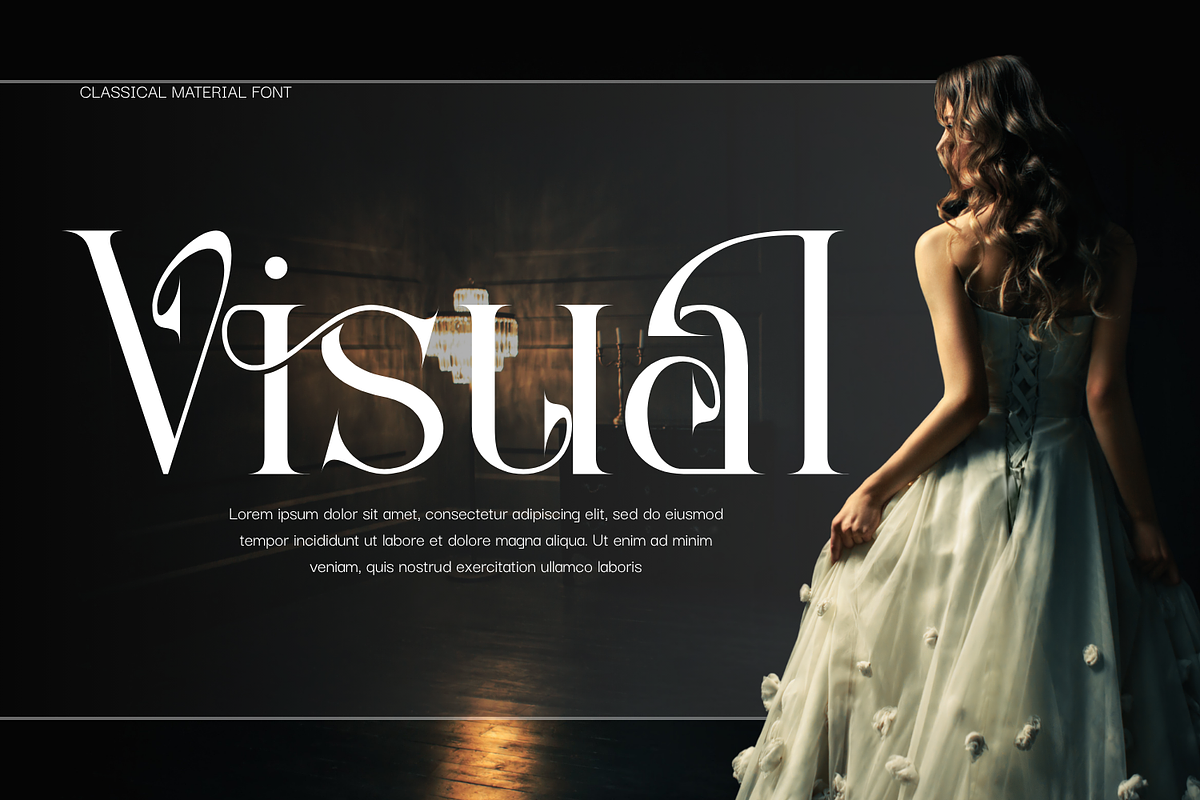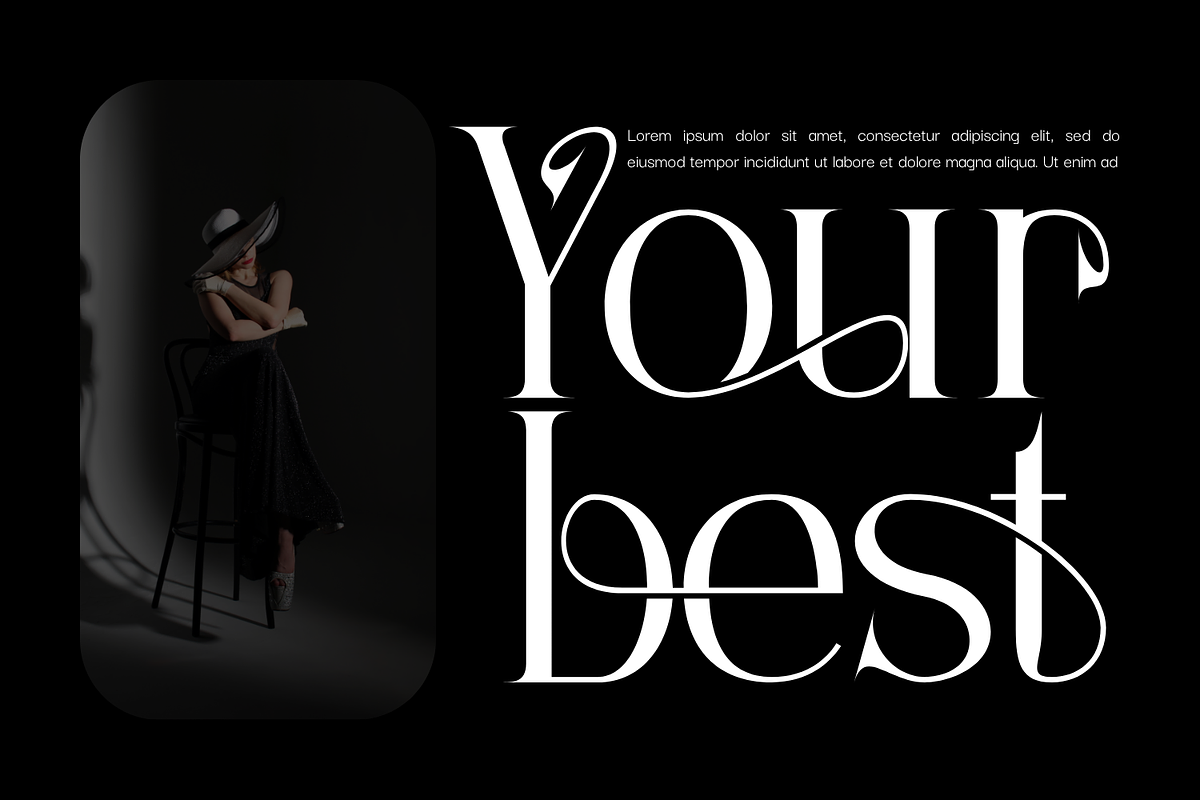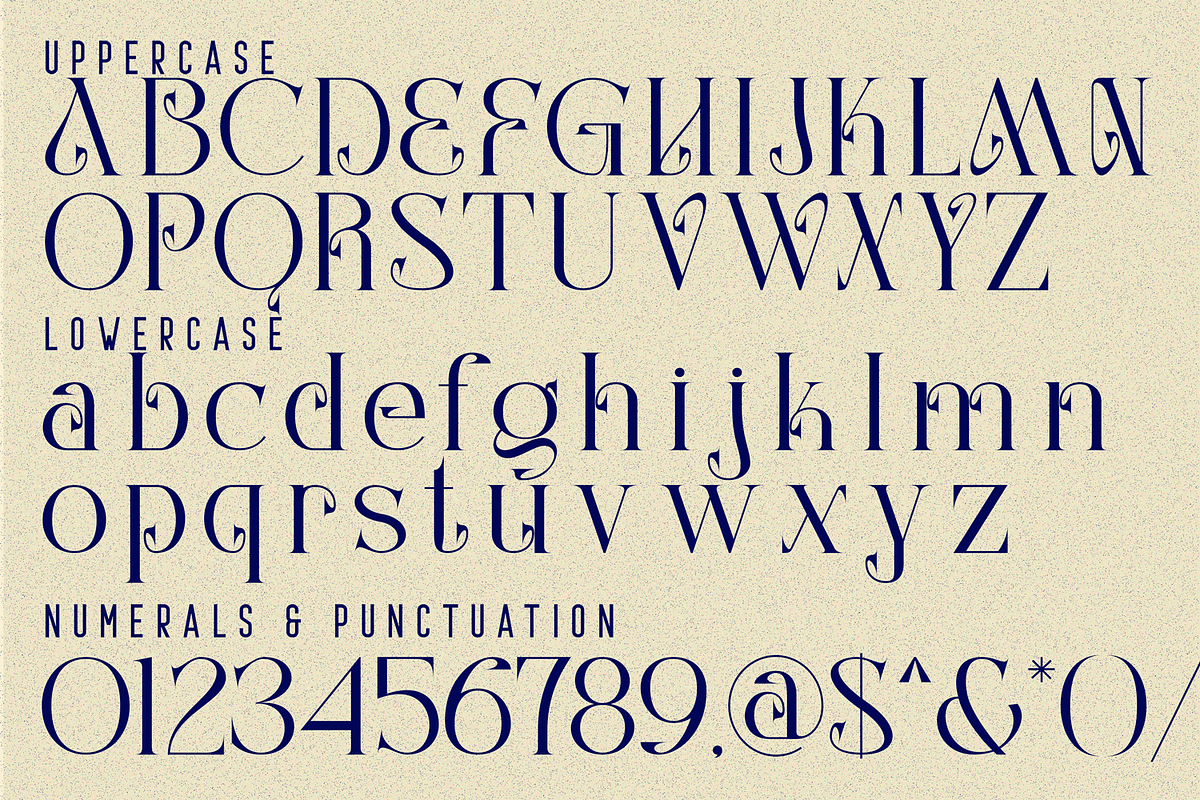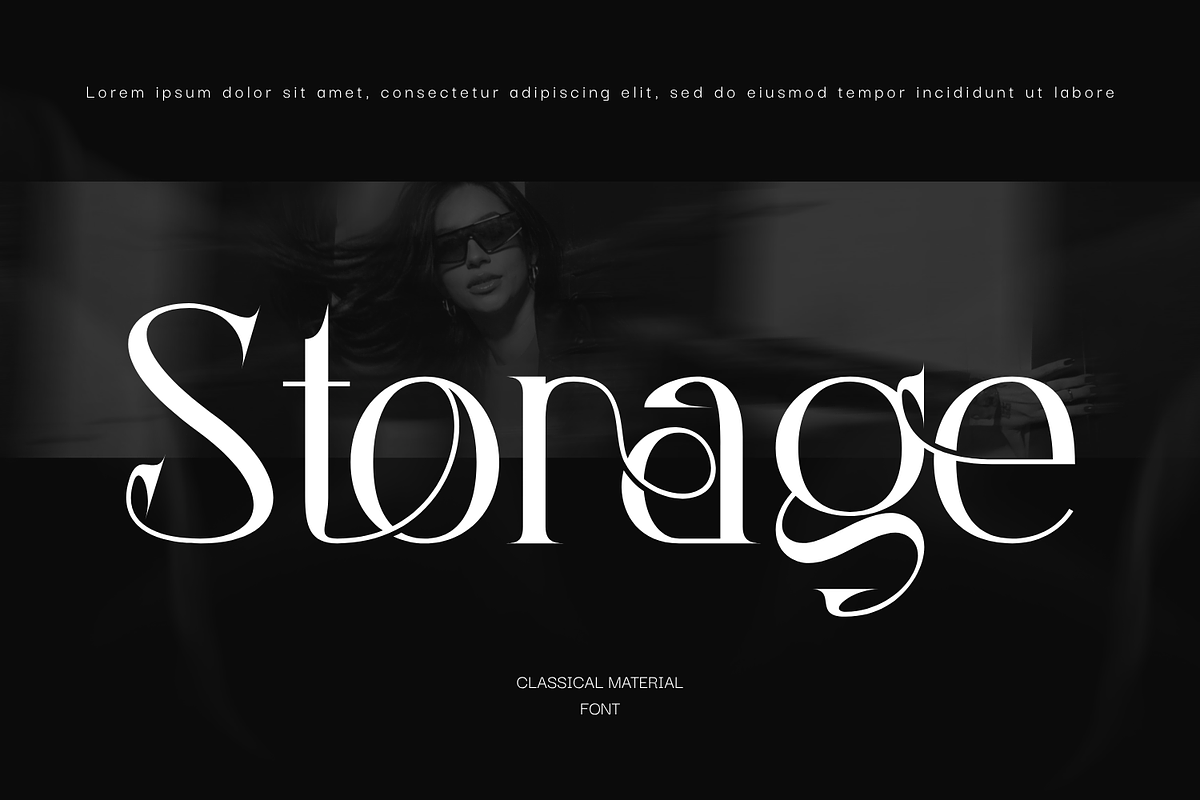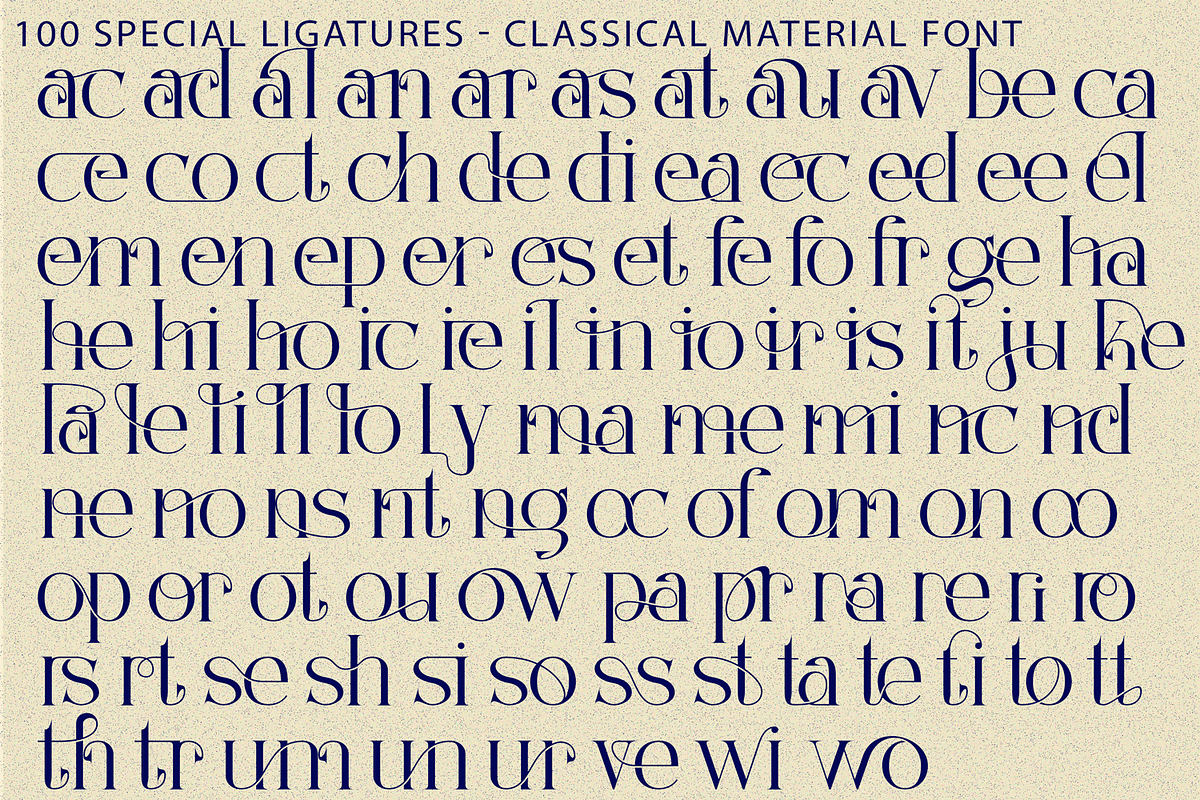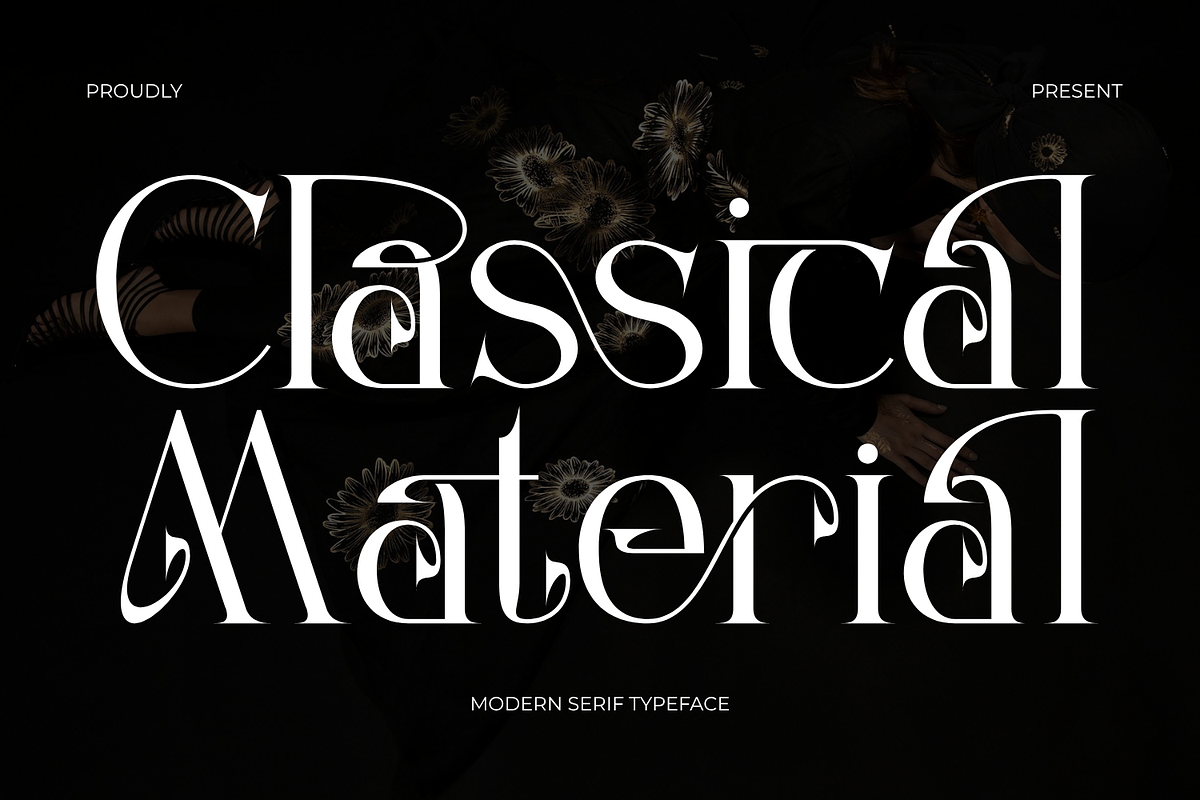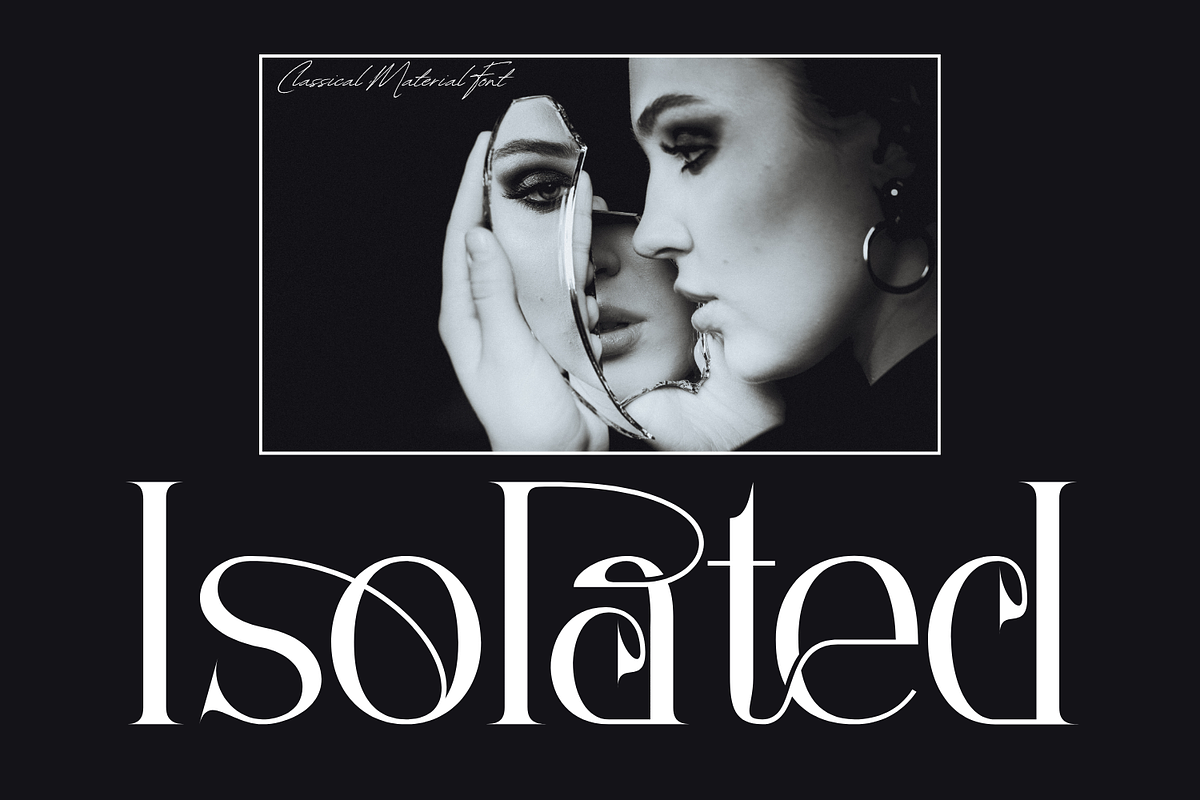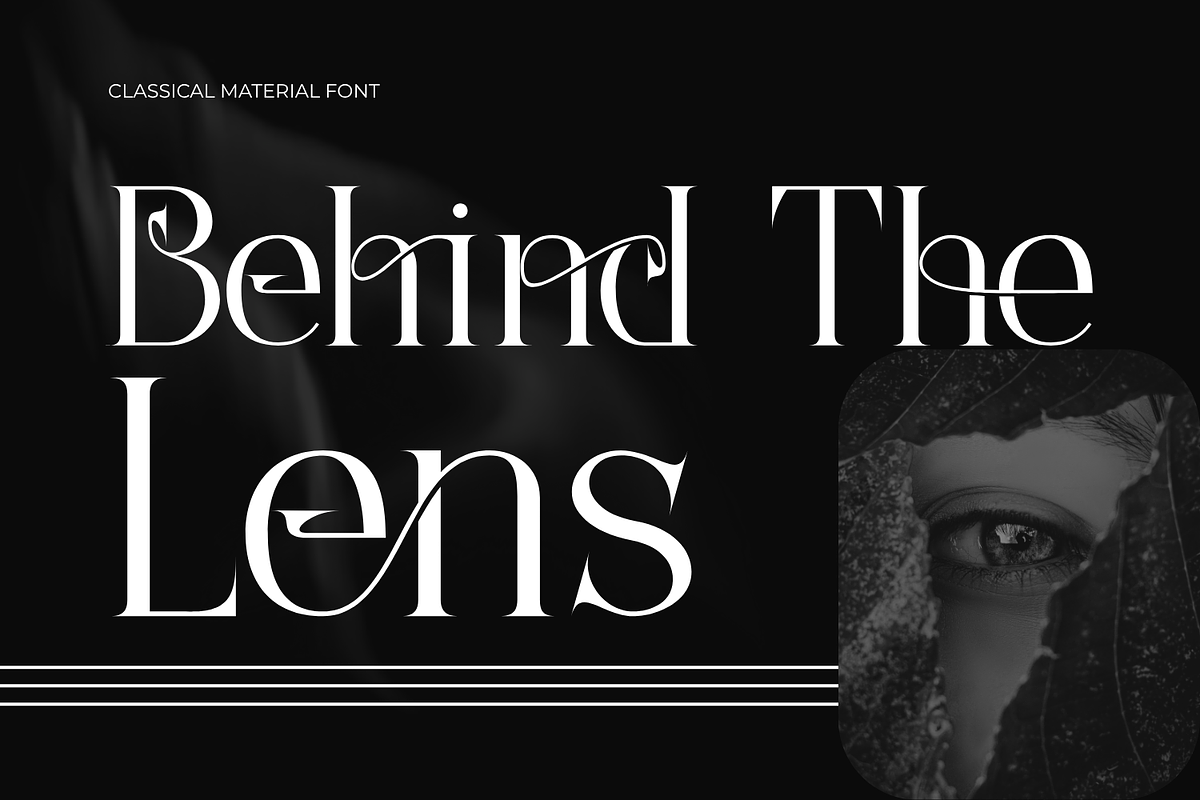
Classical Material CalligraphicSerif
Classical Material - Calligraphic Serif Font – Modern Botanical Calligraphic Serif & Ornamental Display Font is an elegant decorative display serif that brings classical sophistication together with expressive contemporary details. Built around dramatic high contrast, refined proportions, and delicate hairlines, the typeface is distinguished by its sculptural curves, ornamental terminals, and beautifully curled details that give each letter a distinctive personality.
Inspired by the timeless elegance of classical serif typography and the graceful movement of calligraphic forms, Classical Material introduces a more artistic approach through sweeping curves, teardrop-shaped details, sharp transitions, and unexpected decorative gestures. Its bold vertical strokes provide a strong visual foundation, while the finer lines and intricate terminals add delicacy, rhythm, and sophistication. The result is a typeface that feels luxurious and timeless while remaining expressive and contemporary.
🔤Features:
Uppercase & Lowercase Letters
Around 100 Special Ligatures & Alternates
Accented Characters for multilingual support
🔤About 100 ligatures combined with Stylistic Alternates Font:
ac ad al an ar as at au av be ca ce ch co ct de di ea ec ed ee el em en ep er es et fe fo fr ge ha he hi ho ie ic il in io ir is it ju ke la le li ll lo ly ma me mi nc nd ne ng no nt ns oc of om on oo op or ot ou ow pa pr ra rd re ri ro rs rt se sh si so ss st ta te th ti to tr tt um un ur ve wi wo